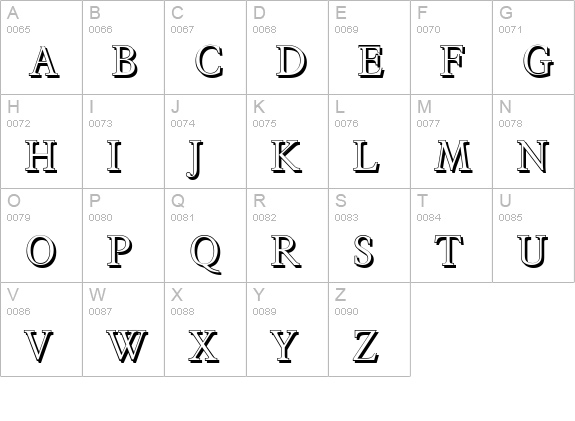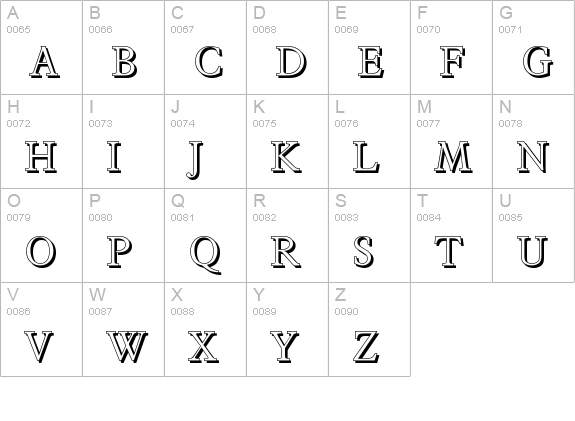
FranciscoShadow-Light-Regular Font Details
FranciscoShadow-Light-Regular is a refined, elegant variant in the FranciscoShadow typeface family \xE2\x80\x94 well suited to elegant body text, refined sub-headings, and luxury branding.
FranciscoShadow-Light-Regular is a versatile and elegant font that exudes sophistication and charm. With its delicate yet bold letterforms, this typeface is perfect for a wide range of design projects, from branding to editorial design. The unique interplay of light and shadow in the font adds depth and dimension, making it stand out from the crowd. Best of all, FranciscoShadow-Light-Regular is available for free download at FontsMarket.com. This means that you can easily access this stunning font and use it in your projects without any cost. Whether you're a professional designer or a hobbyist, FranciscoShadow-Light-Regular is a valuable addition to your font library. Don't miss out on this opportunity to elevate your designs with this beautiful and free typeface.